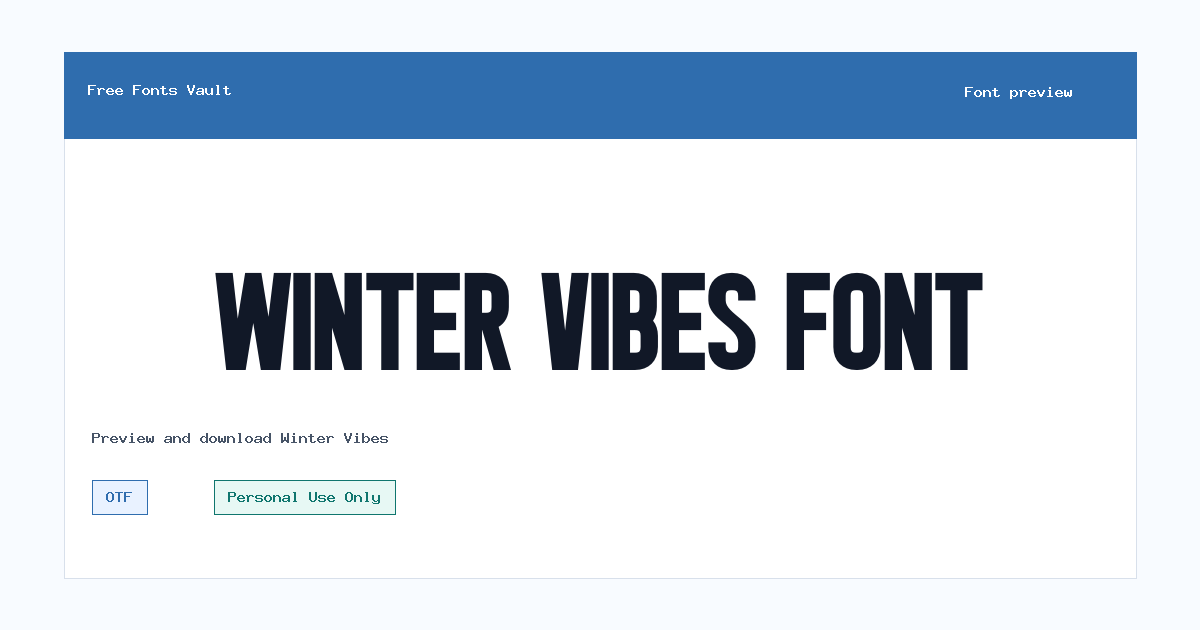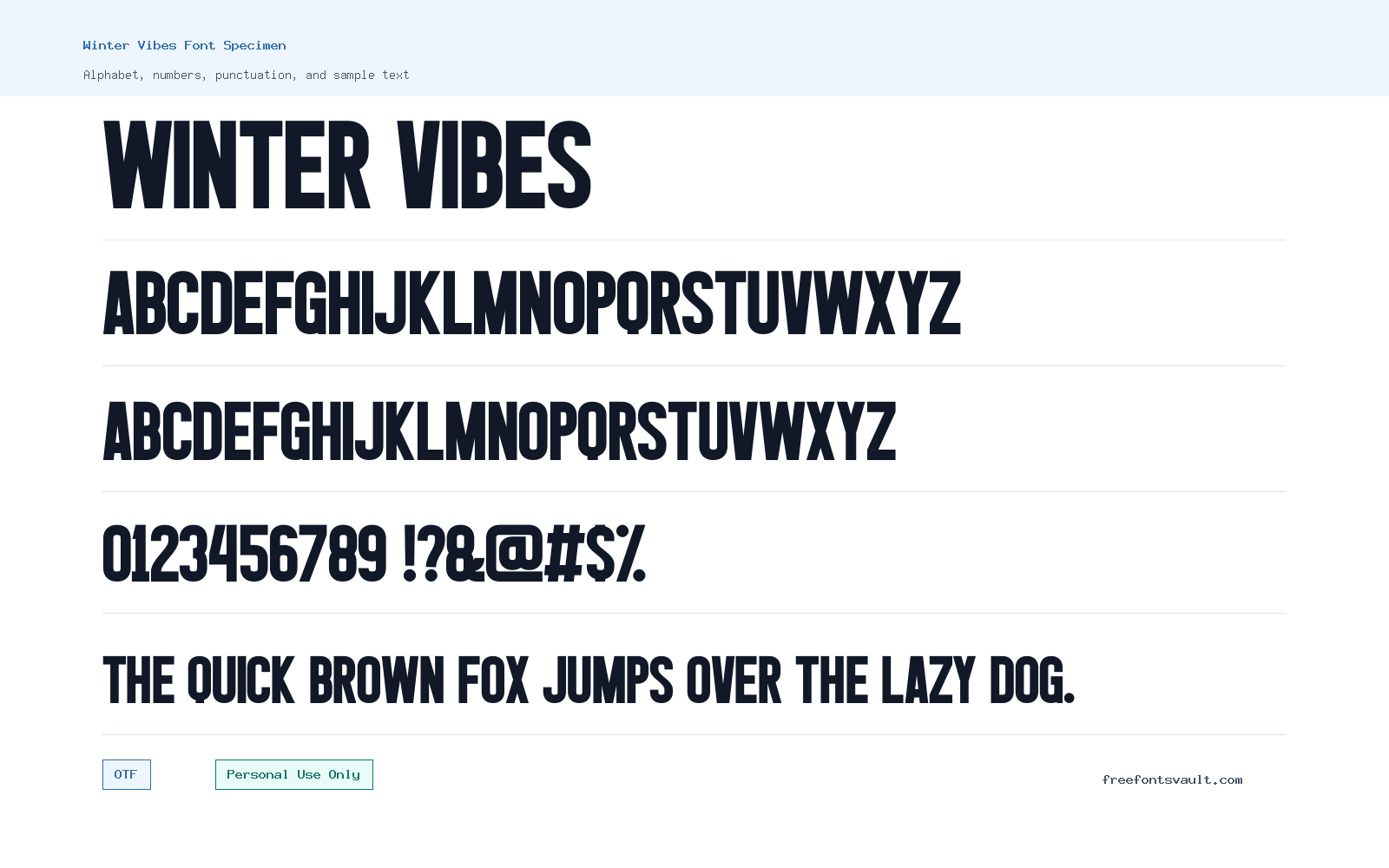
Winter Vibes
- Designer Muhamad Rizki Utomo
Winter Vibes is a sans serif font with a regular OTF style for visitors who want a clean type option for personal design work. It is best tested in the preview tool before download, especially if you plan to use it for headings, labels, posters, or social graphics.
About Winter Vibes
Winter Vibes is listed as a sans serif font, which makes it a practical choice to try when you want letterforms that feel simple and direct rather than decorative or script-like. Since the font family currently has one regular style, it works best when you build contrast through size, spacing, color, or pairing instead of relying on bold, italic, or multiple weights. Use the preview box to check uppercase words, lowercase words, numbers, and punctuation, because a font can feel very different in a logo-style title than it does in a longer line of text.
For real projects, start by testing Winter Vibes in short display settings: page headers, quote cards, packaging mockups, event graphics, thumbnails, and personal branding drafts. If you need body text, try a few full sentences at smaller sizes before committing, as single-style fonts can lose impact or become harder to scan when used for dense paragraphs. Pair it with a plain serif or a neutral sans serif for supporting text, and keep enough spacing around the main words so the font has room to read clearly.
- Sans serif style suited to clean titles, labels, and short personal-use graphics
- Personal posters, quote images, invitations, and social media designs
- Headings, simple branding drafts, mood boards, and short display text
Winter Vibes is credited to Muhamad Rizki Utomo. No foundry name or designer website is listed for this font listing.
What kind of designs should I try with Winter Vibes?
Try it first in short text such as headings, names, captions, poster titles, and personal social graphics. Test longer text in the preview before using it heavily.